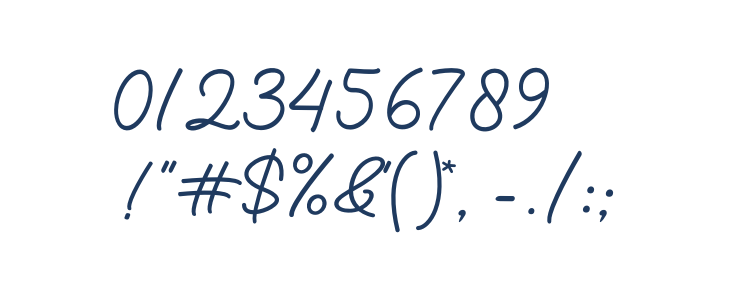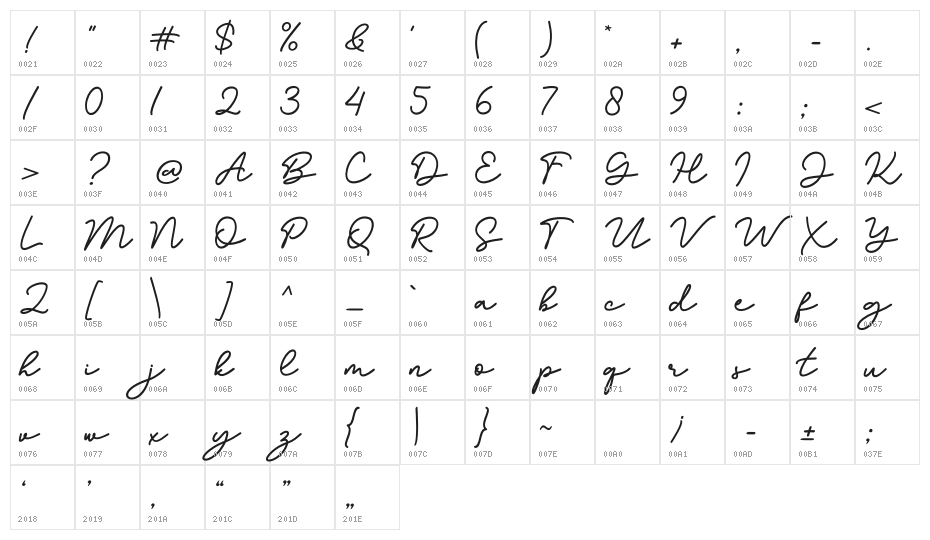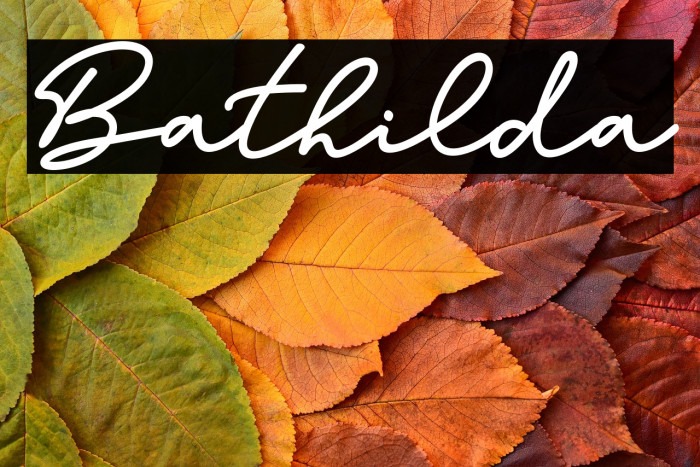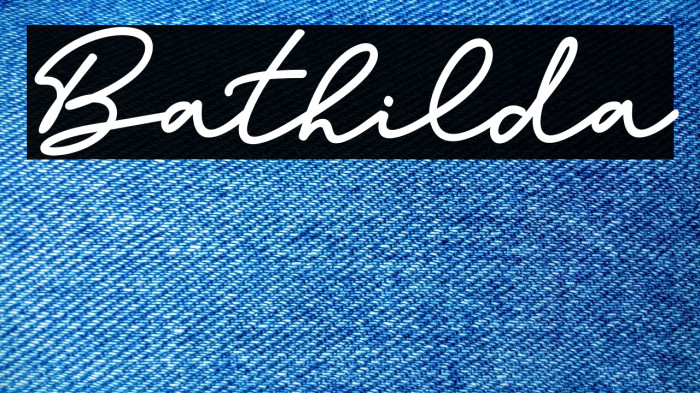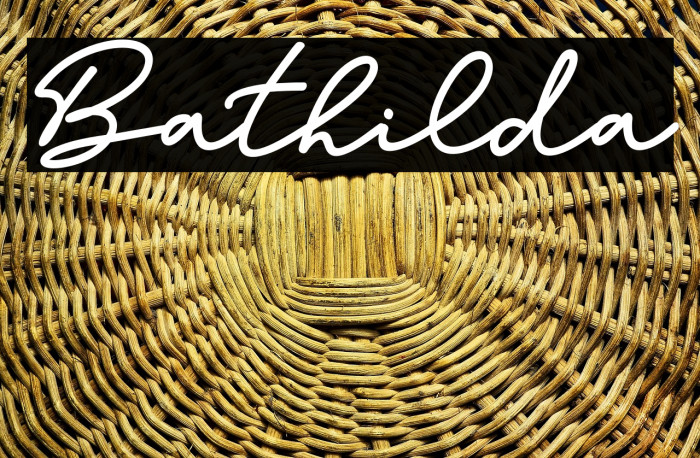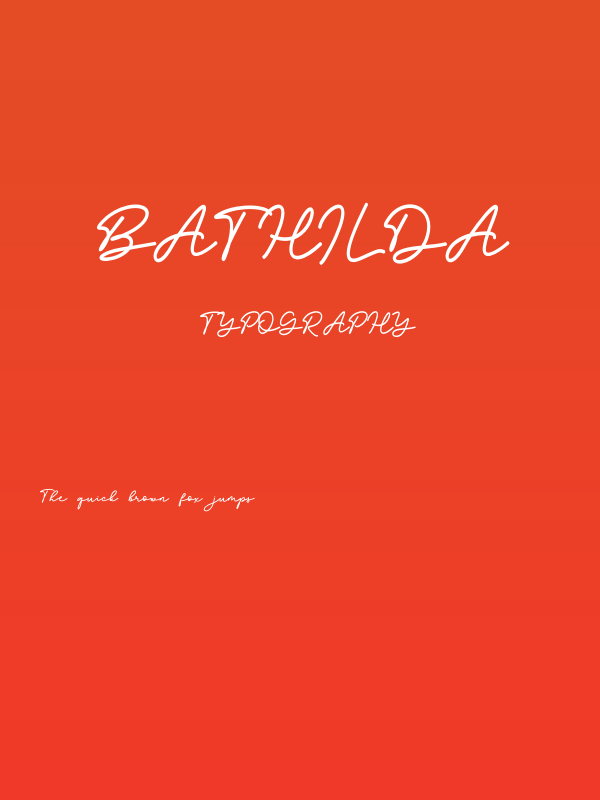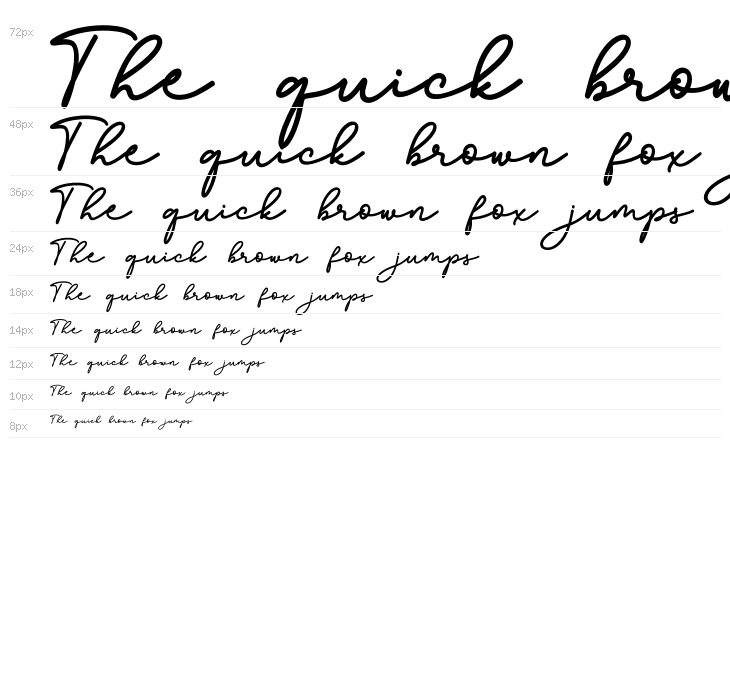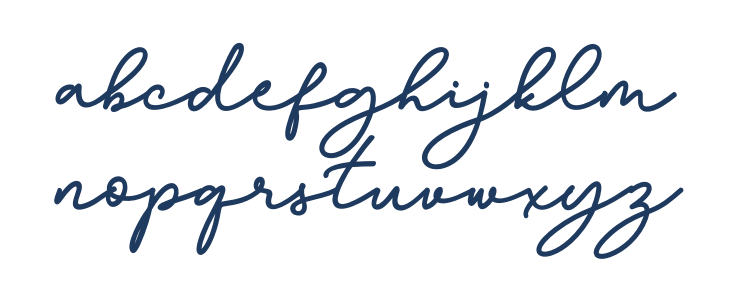
Bathilda Font
Bathilda Description
This font features a flowing, cursive style that mimics elegant handwriting. The letters are interconnected, creating a seamless and fluid appearance. The uppercase characters are slightly more ornate, with graceful loops and curves, while the lowercase letters maintain a consistent and smooth flow. The numerals are clear and legible, complementing the overall script style. Special characters retain the same fluidity, ensuring a cohesive look across all text. This font exudes a sense of sophistication and charm, making it ideal for projects that require a personal touch.
| Proposed Projects | Ideal for wedding invitations, greeting cards, personal branding, and elegant stationery. |